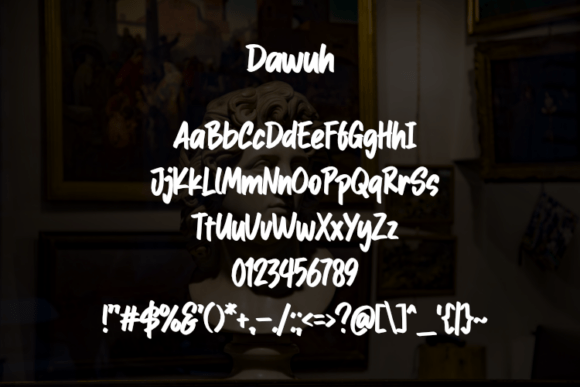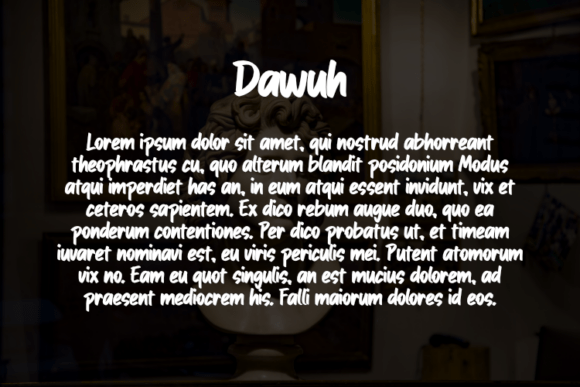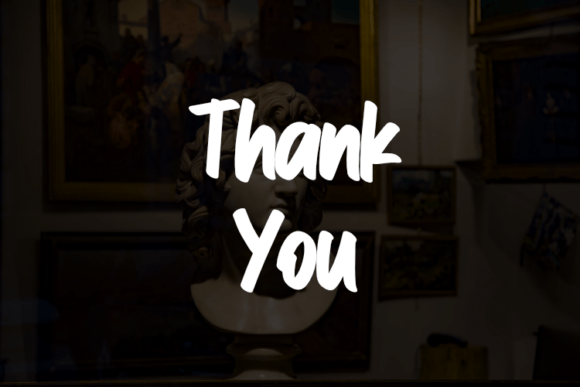
Discover the Versatility of Dawuh Font: Where Style Meets Simplicity
In the realm of typography, few fonts manage to strike a balance between fashion and technology as effortlessly as Dawuh. This stylish font has been making waves in the design community, offering a unique blend of character and simplicity that can elevate any project. Whether you’re a designer looking to add a touch of elegance to your creations or a crafter seeking to make your products stand out, Dawuh is an excellent choice.
The Fashion-Tech Intersection: Dawuh’s Unique Appeal
Dawuh stands at the intersection of fashion and tech, making it an incredibly versatile font for various applications. Its characterful strokes are not only visually appealing but also highly adaptable, allowing it to seamlessly integrate into different design contexts. From clothing and t-shirts to digital platforms and marketing materials, Dawuh can add an undeniable allure to your products.
Transformative Power: Elevating Designs with Dawuh
The transformative power of Dawuh lies in its ability to merge style with simplicity. Each letter is crafted to convey a sense of elegance and modernity, making it an excellent choice for designers and crafters looking to add a professional touch to their work. Whether you’re creating branding materials, product labels, or digital content, Dawuh can help you achieve a cohesive and sophisticated look.
Applications of Dawuh: Beyond Fashion and Tech
While Dawuh excels in the realms of fashion and tech, its applications extend far beyond these industries. This font can be used in a variety of contexts, including:
- Branding and Marketing: Create memorable logos, brochures, and advertisements with Dawuh’s distinctive style.
- Product Design: Enhance your product labels, packaging, and promotional materials with a touch of sophistication.
- Digital Content: Use Dawuh to create engaging blog posts, social media graphics, and website content that stands out.
Dawuh is more than just a font; it’s a design tool that can transform your creative projects. Its unique blend of style, simplicity, and versatility makes it an invaluable asset for designers and crafters across various industries. By incorporating Dawuh into your workflow, you can elevate your designs, enhance your products, and leave a lasting impression on your audience. Discover the transformative power of Dawuh and take your designs to the next level.